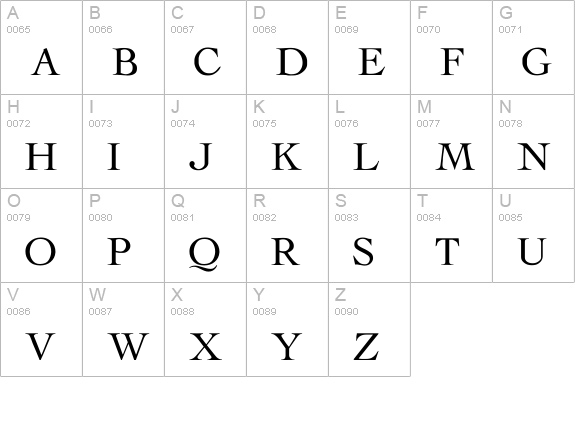
Cochinchine Font Details
Introducing Cochinchine font - a stylish and versatile typeface that exudes elegance and sophistication. With its unique blend of classic and modern elements, Cochinchine is perfect for a wide range of design projects, from branding to packaging to editorial design. This beautiful font features clean lines and a timeless appeal that will make your text stand out. Whether you're creating a logo, a poster, or a website, Cochinchine will add a touch of sophistication to your designs. And the best part? Cochinchine font is available for free download at FontsMarket.com. So go ahead and elevate your designs with this stunning typeface today!